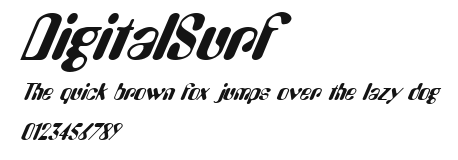
• Font Name: DigitalSurf
• Full Font Name: DigitalSurf
About DigitalSurf.ttf
DigitalSurf.ttf is a modern, elegant sans-serif font designed for ultimate readability and visual harmony. Perfect for branding, headlines, web design, and print materials.